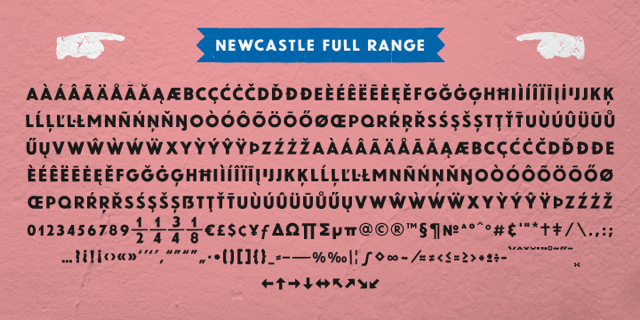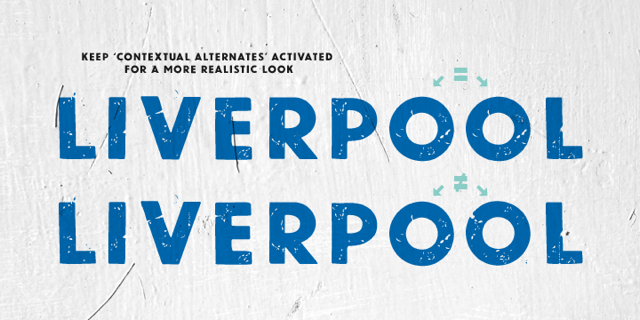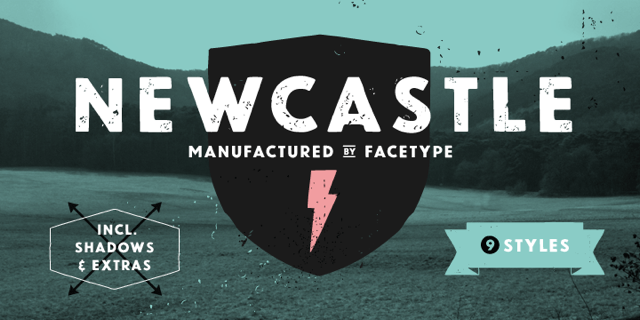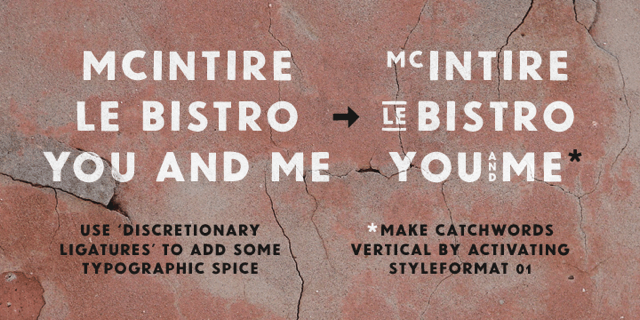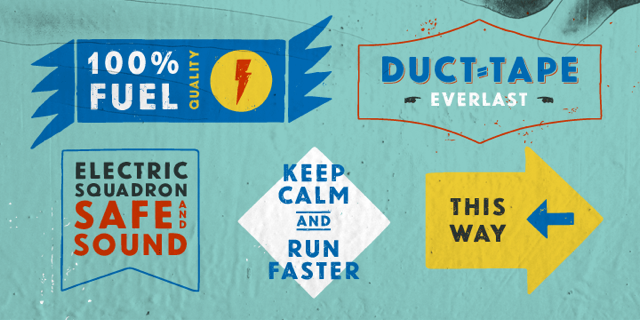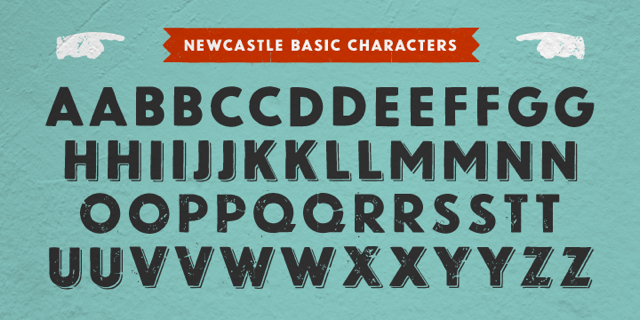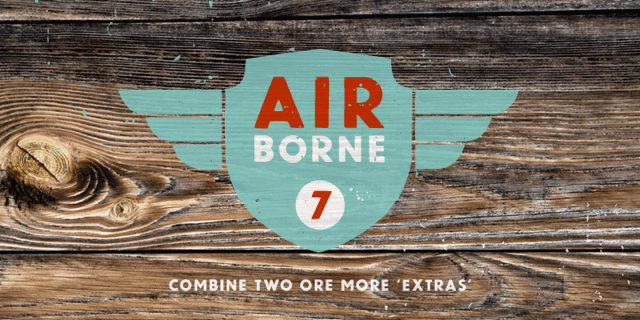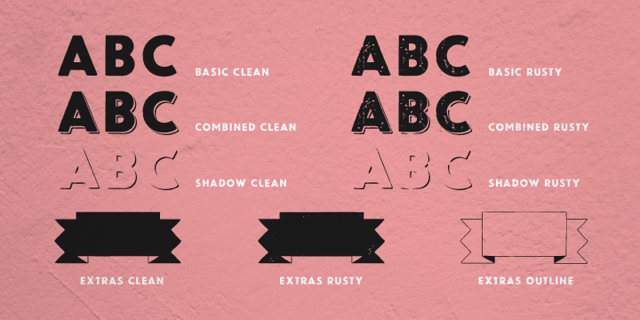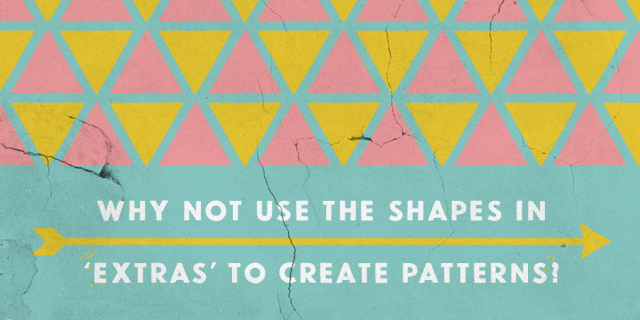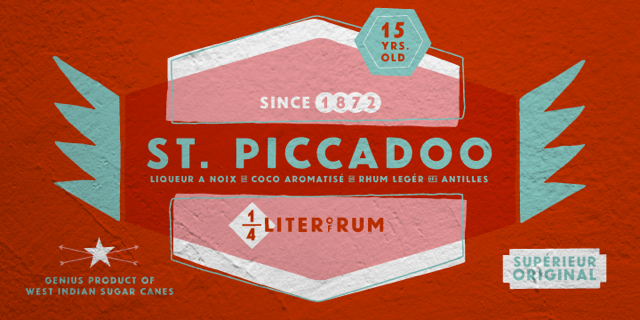
Newcastle is a dingbat, grunge and hand display font family. This typeface has nine styles and was published by FaceType.
Newcastle gives you great opportunities for spicy typography. If you find some similarities to one of our fonts, Blitzplakat, you are right. We took it to the next level and made it even better: We extended the range of letters, added optional catchwords, extra shapes, shadows, dust and arrows.
To get the most out of Newcastle, use Discretionary Ligatures in the OpenType section of your layout program of choice to turn frequent short words like and, of or from into catchwords. Choose Styleformat 01 to make them vertical. Keep Contextual Alternates activated to make consecutive letters look more realistic (the second letter will be replaced automatically by a slightly different looking version).
Want to roughen the look of your design even more? Add the dust hidden in the Extras style by typing underscore, emdash, endash or hyphen.
This font is vintage fun - let’s party!
Newcastle has been designed by Marcus Sterz.